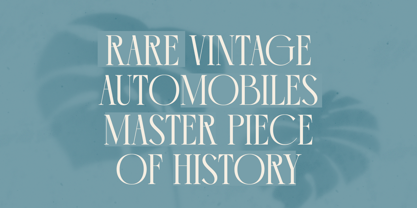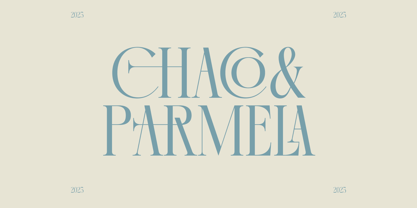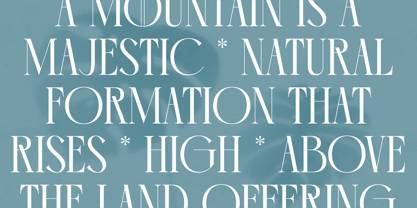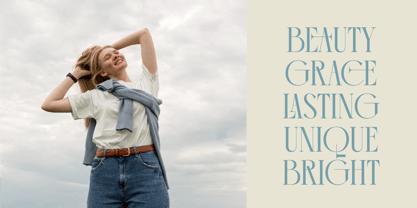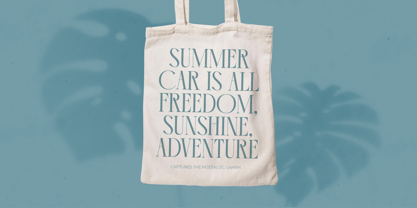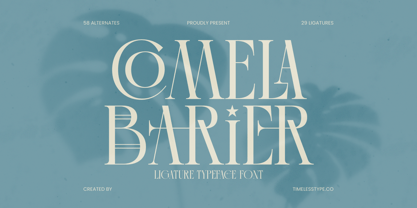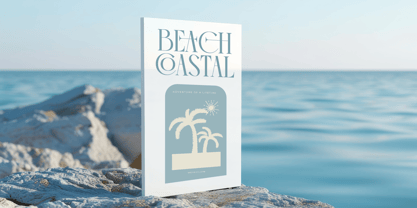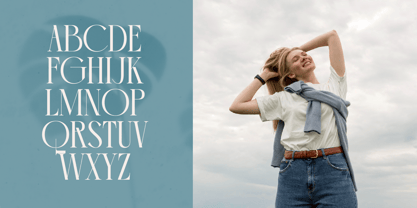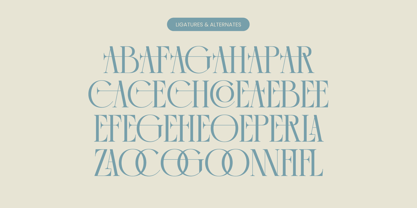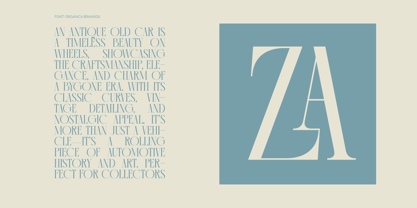
Comela Barier
by Timelesstype Studio
The Comela Barier Font Family was designed by Heru Utama Putra and published by Timelesstype Studio. Comela Barier contains 2 styles and family package options. More about this family
Comela Barier - Ligature Typeface Font , from Timelesstype, Suitable for any projects such as: logos, branding projects, homeware designs, product packaging, mugs, quotes, posters, shopping bags, t-shirts, book covers, name card, invitation cards, greeting cards, label, photography, watermark, special events, and all your other luxury and beautiful projects that need a Luxury Serif taste.